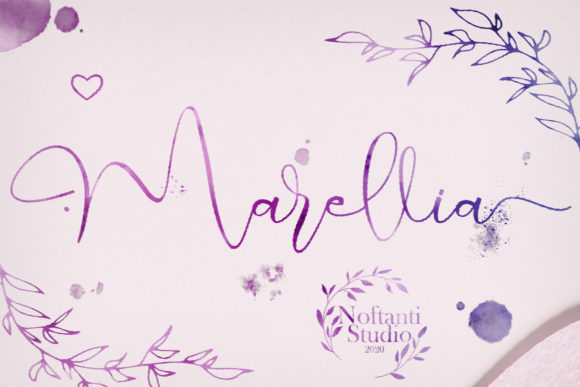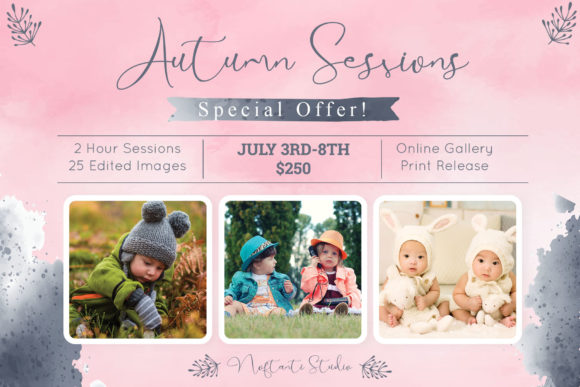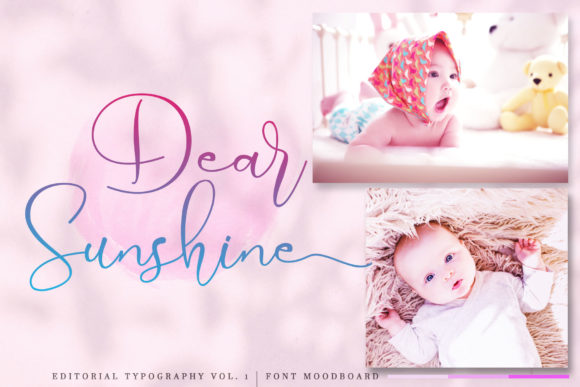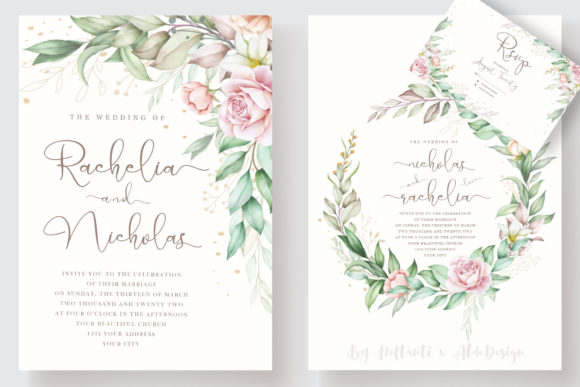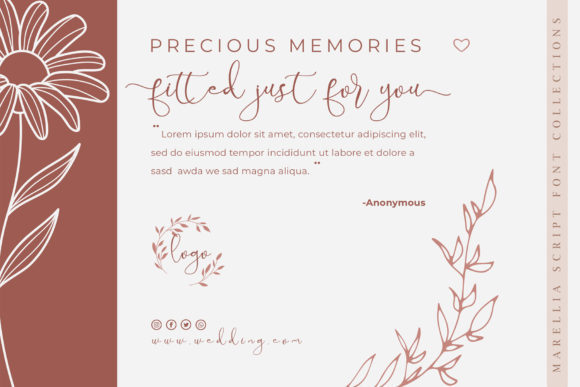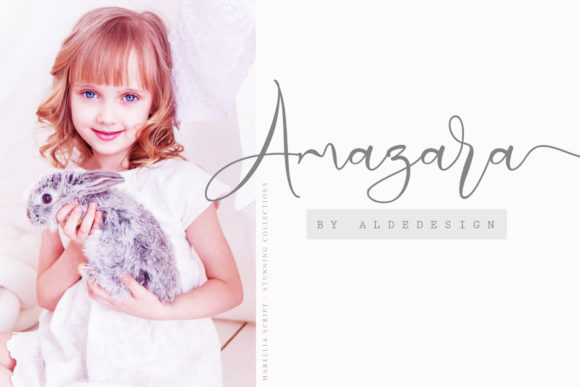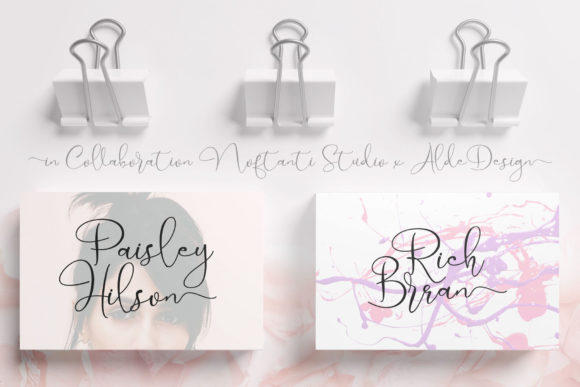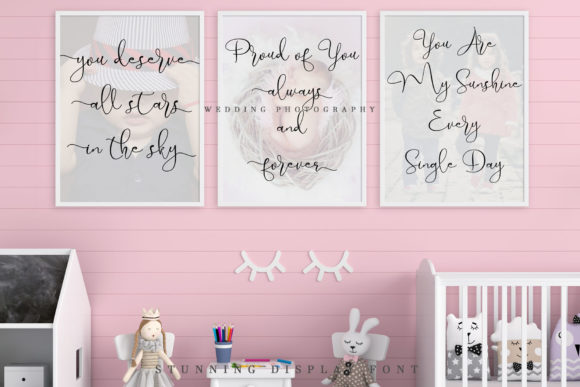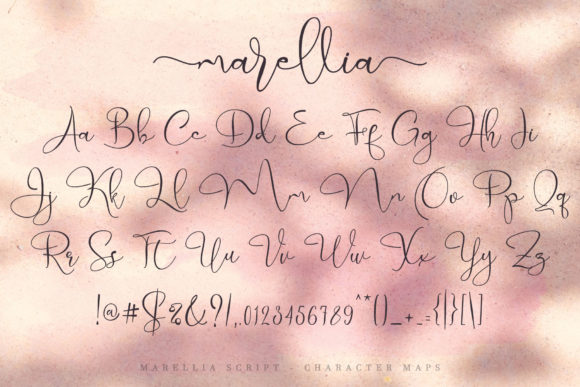
Marellia Font
About Marellia Font
Marellia is a stunning and versatile handwritten font that embodies elegance and grace. Here are some reasons why you’ll fall in love with Marellia and how it can breathe life into your creative ideas:
1. Delicacy and Elegance: Marellia’s delicate and flowing strokes exude elegance, making it a perfect choice for projects that require a touch of sophistication and refinement. Its graceful curves and well-balanced characters add a sense of beauty and class to any design.
2. Wide Range of Designs: Marellia’s versatility allows it to adapt to various design projects. Whether you’re creating wedding invitations, thank you cards, quotes, greeting cards, logos, business cards, or any other design that calls for a handwritten touch, Marellia complements them effortlessly.
3. Varying Baseline: The varying baseline in Marellia adds a dynamic and artistic touch to your designs. It creates a sense of movement and flow, capturing the essence of hand-lettering that is both engaging and visually appealing.
4. Smooth Lines: The smooth and refined lines of Marellia enhance the font’s elegance and readability. It ensures that your message is conveyed with clarity and ease, making it accessible to a wide audience.
5. Gorgeous Glyphs and Alternates: Marellia comes with a beautiful set of glyphs and stunning alternates, providing you with creative flexibility. You can use these decorative elements to add flourishes and embellishments, further enhancing the visual appeal of your designs.
6. Timeless Appeal: Marellia’s classic and timeless design ensures that it remains relevant and captivating across different trends and styles. It’s a font that stands the test of time and continues to impress throughout the years.
7. Handwritten Authenticity: Marellia emulates the authenticity of real handwriting, creating a personal and human connection with the audience. This authenticity fosters a sense of intimacy and trust, making your designs more relatable and memorable.
8. Eye-Catching and Captivating: Marellia’s elegant and flowing style catches the eye and captivates the viewer. It leaves a lasting impression, making your designs stand out in a crowded visual landscape.
Embrace the beauty and versatility of Marellia in your creative projects, and watch how it elevates your designs to new heights of elegance and charm. Let Marellia be the enchanting script that brings life and sophistication to your artistic endeavors.